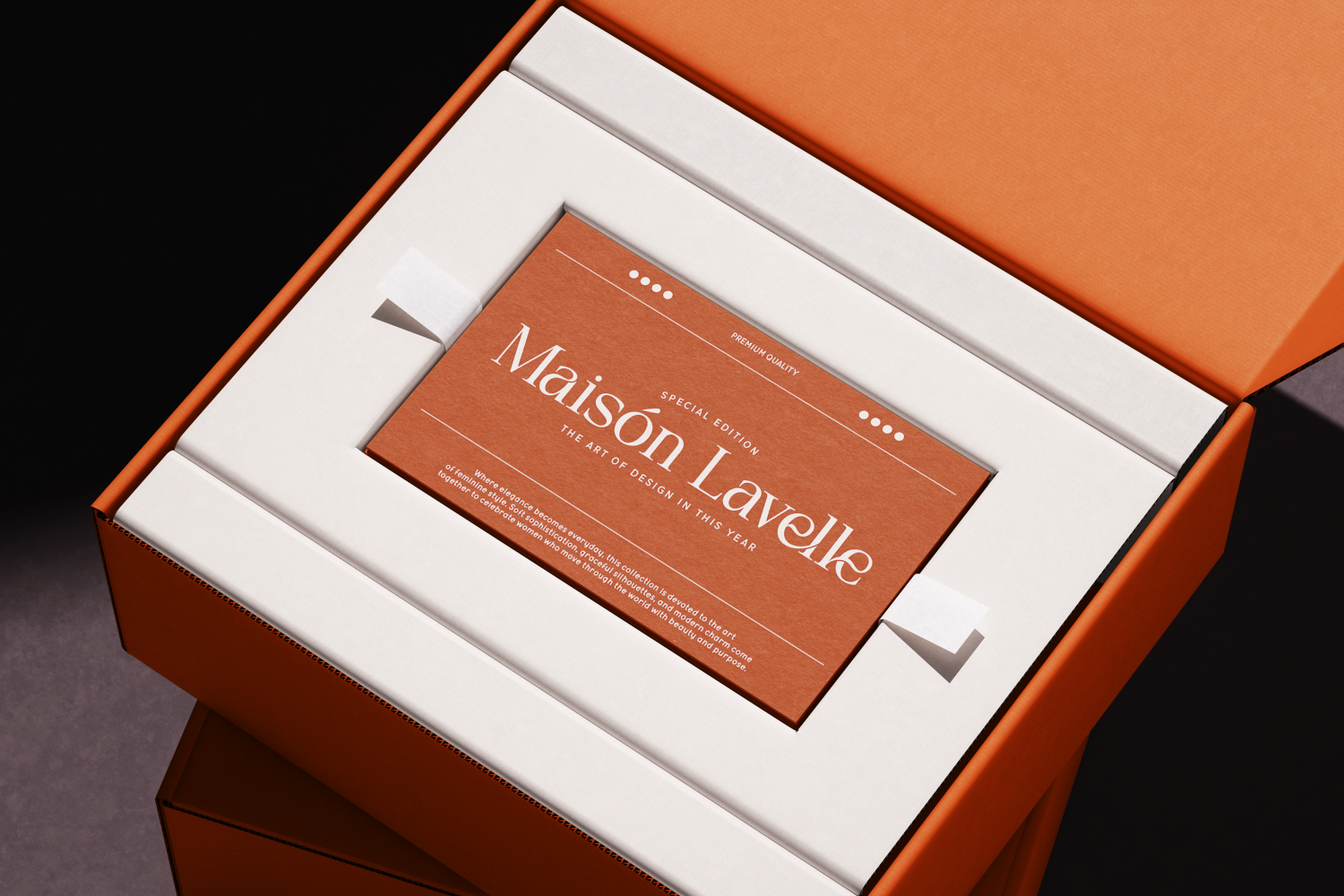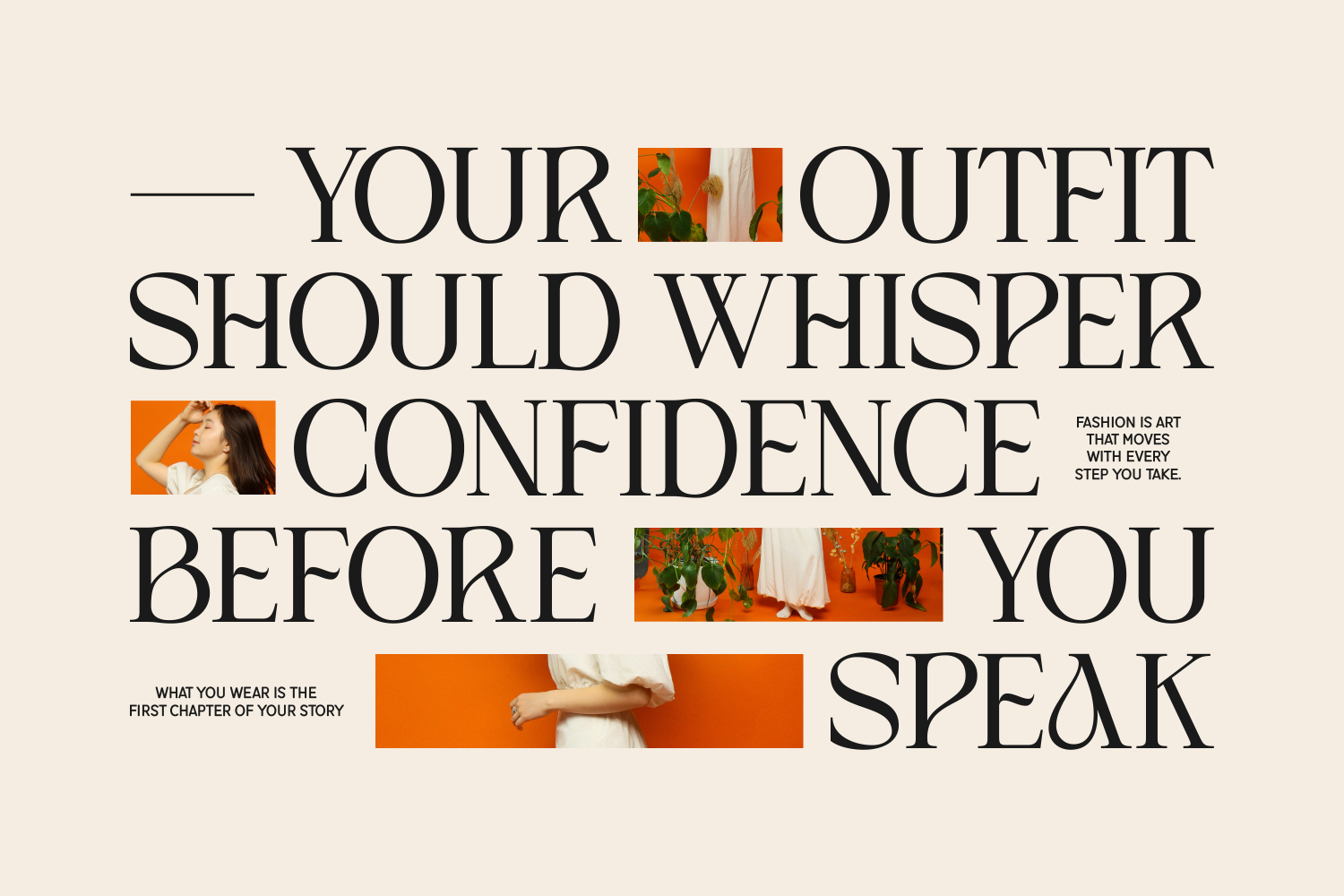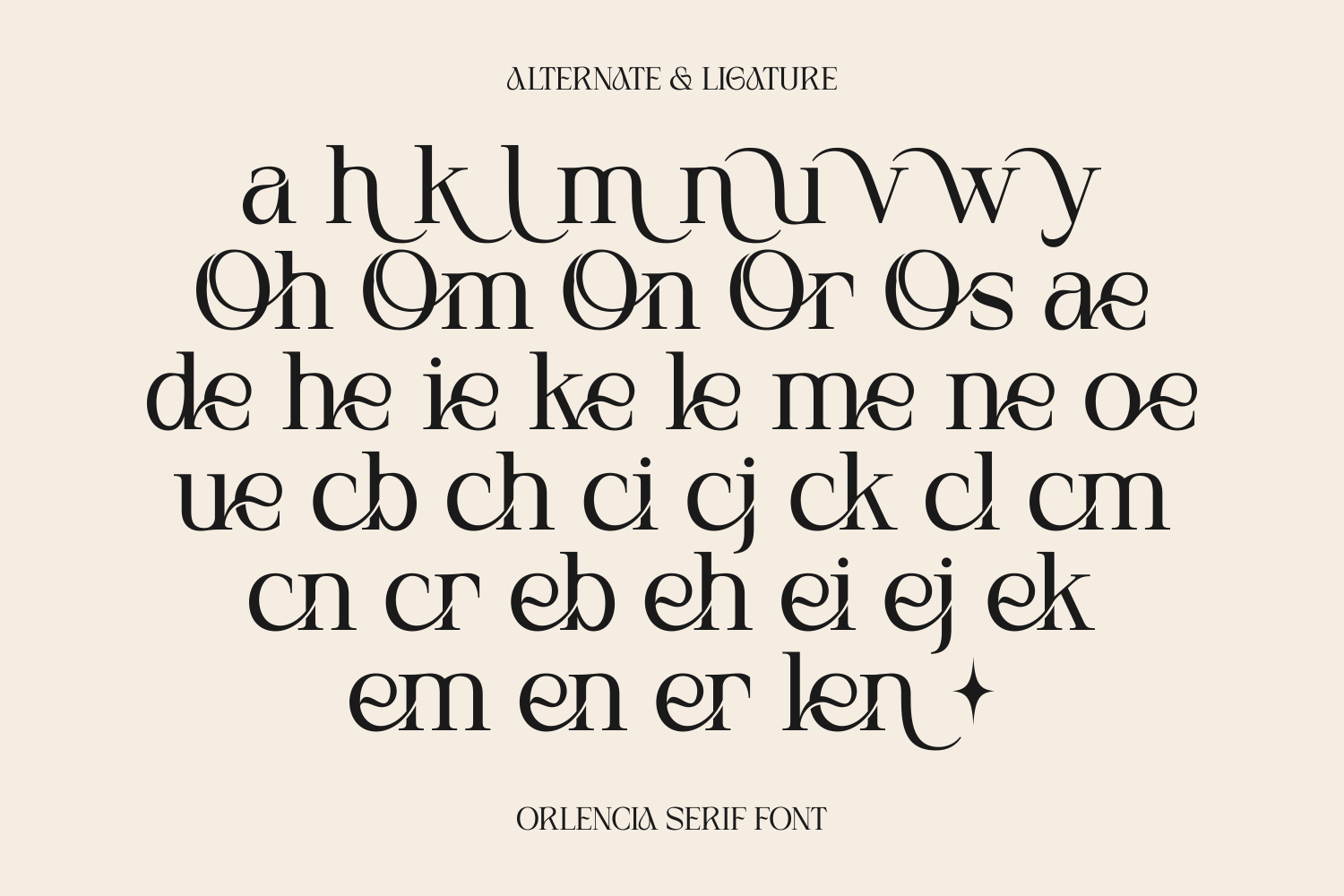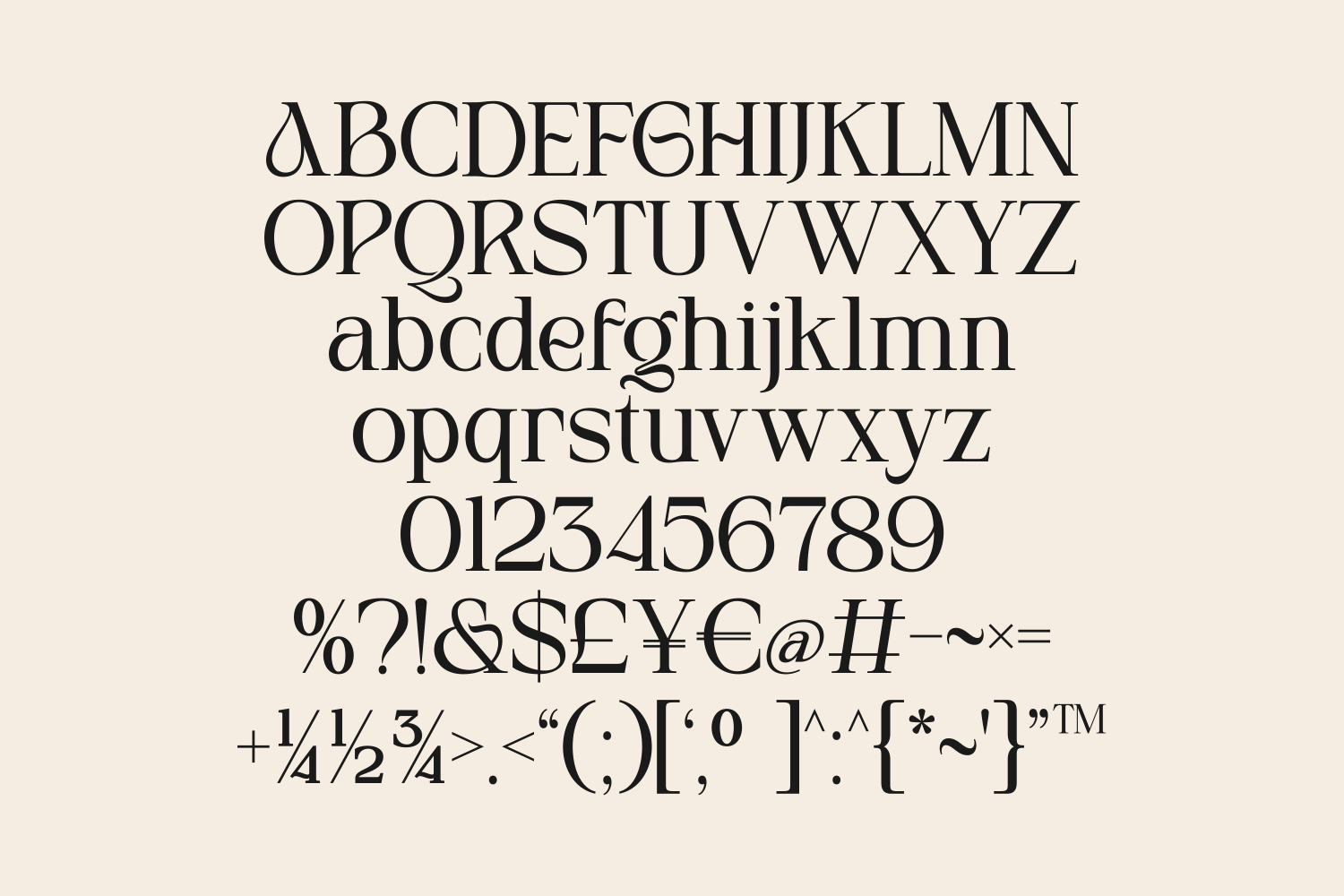
Orlencia – Elegant Modern Serif Font for Luxury Branding
Typography plays an important role in shaping the identity of a brand. The right typeface can instantly communicate elegance, personality, and professionalism. Orlencia is an elegant modern serif font designed to deliver sophistication, luxury, and timeless beauty in every letterform.
With its refined curves, graceful contrast, and stylish ligatures, Orlencia brings a unique blend of classic serif tradition and modern aesthetics. This makes it an excellent choice for designers who want to create premium visuals that feel both fashionable and professional.
A Modern Serif with Elegant Character
Orlencia is crafted to express elegance without losing readability. The carefully designed letterforms feature soft curves and balanced proportions that make the font visually pleasing across various design applications.
The serif details are subtle yet distinctive, giving the typeface a luxurious personality that works beautifully in branding and editorial design. Whether used in headlines or logo designs, Orlencia immediately creates a high-end impression.
One of the standout characteristics of Orlencia is its stylish ligatures and alternates. These special characters allow designers to create more expressive and fluid typography, especially when designing brand names, product packaging, or fashion-related content.
The ligatures smoothly connect certain letter combinations, adding a sophisticated touch that enhances the overall typography.
Perfect for Fashion and Luxury Branding
Orlencia is particularly suitable for projects that require a refined and elegant look. The font naturally complements industries that focus on aesthetics and premium presentation.
Designers can use Orlencia for:
Because of its stylish and modern feel, Orlencia works exceptionally well in fashion and lifestyle industries. The font brings a sense of quiet luxury that makes any brand feel more sophisticated.
Designed for Professional Typography
Orlencia includes a complete set of characters that support professional design needs. The font is designed to maintain clarity and elegance across different design formats.
Font features include:
These features make Orlencia flexible enough to be used in both digital and print design. Designers can easily create consistent typography across branding materials, marketing campaigns, and editorial layouts.
A Typeface That Enhances Visual Storytelling
Typography is not only about readability—it also helps convey emotion and identity. Orlencia is designed to help brands tell their story through elegant visual language.
The font’s flowing curves and stylish shapes create a sense of confidence and sophistication. When paired with minimal layouts, soft color palettes, or fashion photography, Orlencia becomes a powerful design element that enhances the entire composition.
This is why many designers choose modern serif fonts like Orlencia for premium branding. The combination of elegance and modern style creates typography that feels timeless yet contemporary.
Ideal for Editorial and Creative Design
Another strength of Orlencia is its versatility in editorial design. Magazine headlines, fashion editorials, and luxury advertisements often rely on distinctive serif fonts to create visual impact.
Orlencia’s elegant structure allows it to perform beautifully in large typography settings such as headlines, posters, and branding displays. At the same time, it maintains readability when used in smaller text for captions or short paragraphs.
This balance between style and function makes Orlencia a valuable addition to any designer’s type collection.
Elevate Your Designs with Orlencia
If you are looking for a serif font that combines elegance, modernity, and luxury, Orlencia is an excellent choice. The font’s refined details and stylish ligatures allow designers to create typography that feels polished and sophisticated.
Whether you are designing a fashion brand identity, a luxury packaging concept, or an editorial layout, Orlencia provides the visual character needed to elevate your work.
Its graceful design makes it suitable for projects that aim to communicate beauty, confidence, and premium quality.
Explore the full potential of Orlencia and bring timeless elegance to your typography.